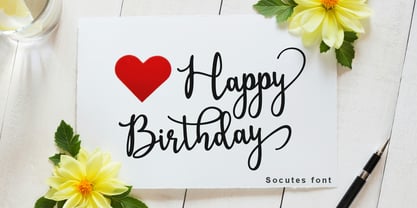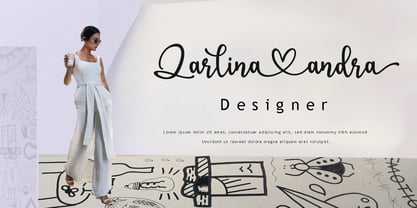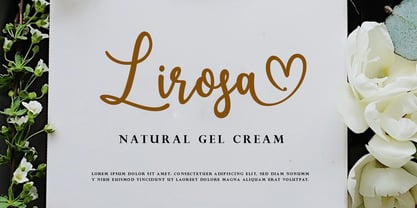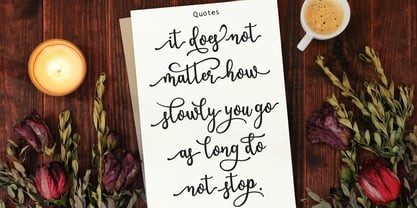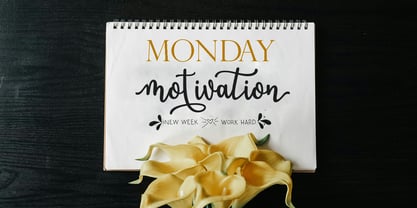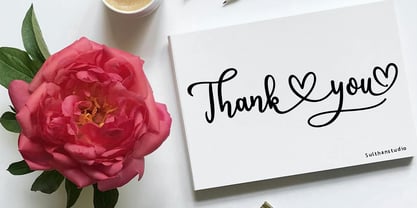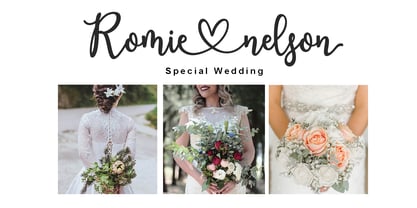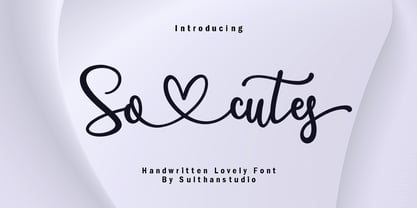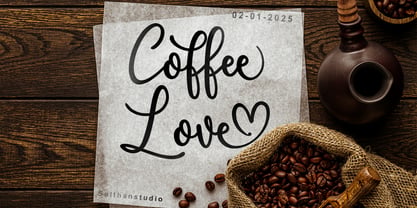
Socutes
La familia tipográfica Socutes fue diseñada por Nasrullah y publicada por Sulthan Studio. Socutes contiene 1 estilos. Más información sobre esta familia
Introducing Socutes font - where heart-melting cuteness meets typographic elegance. As hinted in its name, this adorable handwritten font brings a sprinkle of charm and whimsy to your creative projects. With delightful heart connections weaving a story between each letter, this font boasts a characteristic flair all its own. Richly embellished with an array of cool swashes, Socutes font further enhances your creative toolkit, adding a whimsical touch to your design aesthetics. Plus, it comes complete with alternative characters and ligatures to cater to all your typography needs, ensuring your work stands tall with a unique twist. Ideal for infusing a dash of fanciful creativity, Socutes font is the perfect bet for your great work requirements.